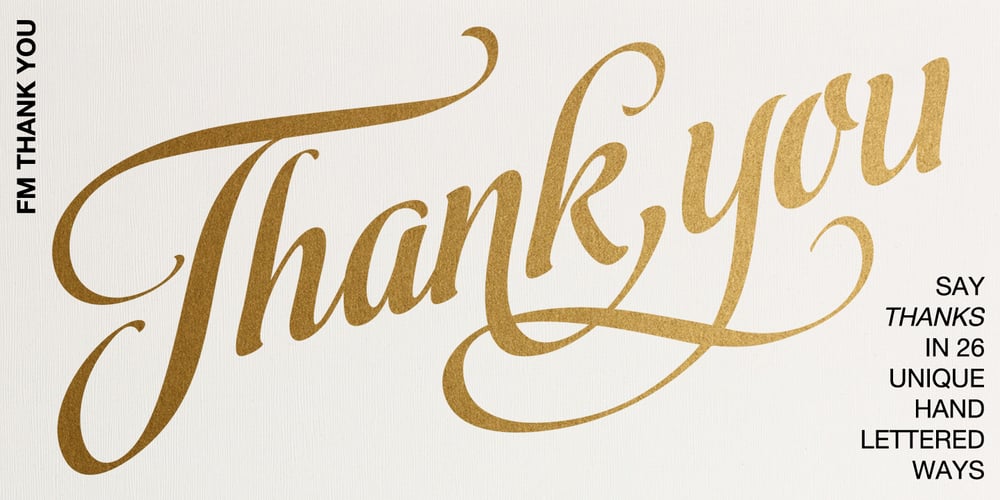
FM Thank You Font Family was designed by Jordan Jelev and published by The Fontmaker. FM Thank You contains 1 styles and family package options. FM Thank You consists of 26 ‘thank you’ hand letterings – all custom made and handwritten. Now you have 26 unique ways to say ‘thank you’, adding a personal touch to your message.